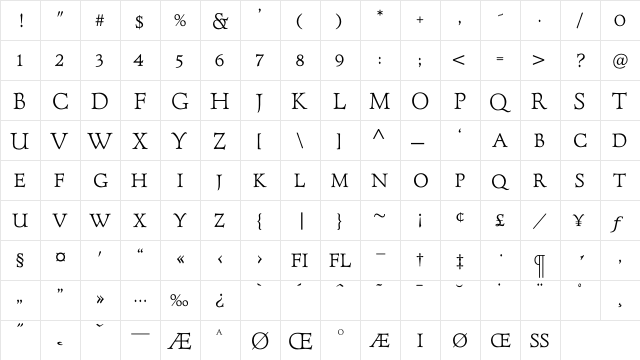
ForumTitlingMedium Regular
Design Context for ForumTitlingMedium Typeface
ForumTitlingMedium takes a measured approach to typography — its balanced proportions and neutral character make it a reliable workhorse for both digital and print work.